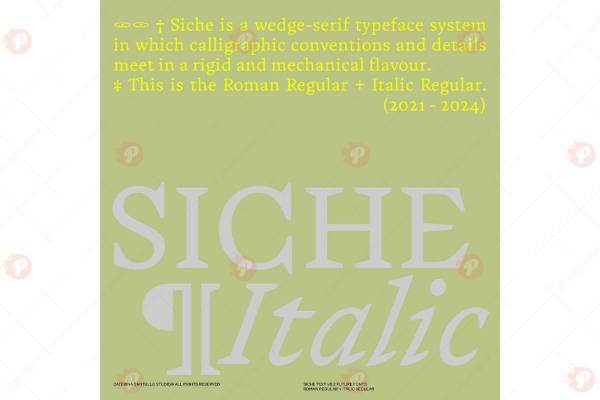
The Siche Text Font Free is an elegant serif typeface crafted for editorial design, books, magazines, branding, and digital products. With its refined serifs and timeless letterforms, this font delivers both professional readability and a sophisticated look.
Perfect for long-form texts, headlines, logos, and stylish branding, Siche Text strikes a balance between classic typography and modern elegance. Whether you’re working on a book layout, magazine spread, website, or packaging design, this font ensures your work looks polished and premium.
Typeface: Serif / Text / Elegant
Style: Classic / Readable / Professional / Editorial